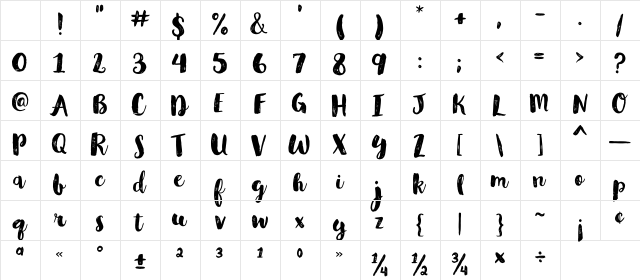
Complete Glamour Brush Regular glyph index. Displaying only characters natively supported by Glamour Brush Regular font.
Glamour Brush flows with the natural rhythm of handwritten lettering, making it ideal for designs that call for warmth and personal expression.
Font Pairing: Combine Glamour Brush with a simple geometric sans for maximum contrast - the tension between flowing curves and clean structure is a classic typographic pairing.
Pro Tip: Use Glamour Brush for short runs of text - names, titles, or taglines. Extended body copy in script faces tires the eye quickly.